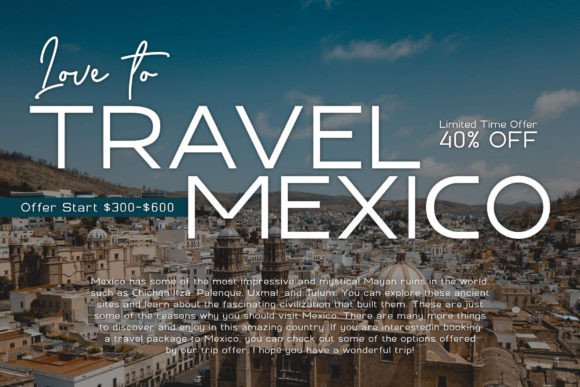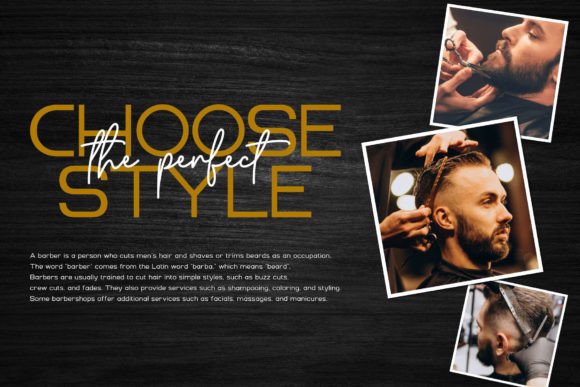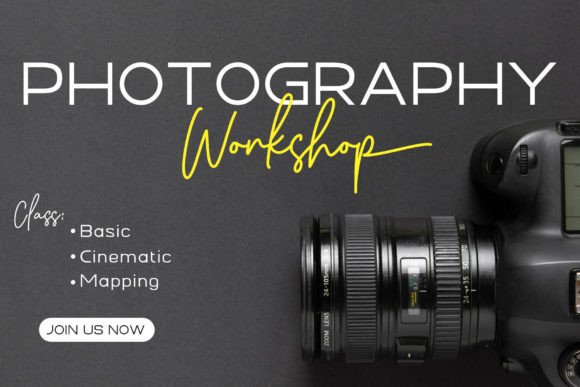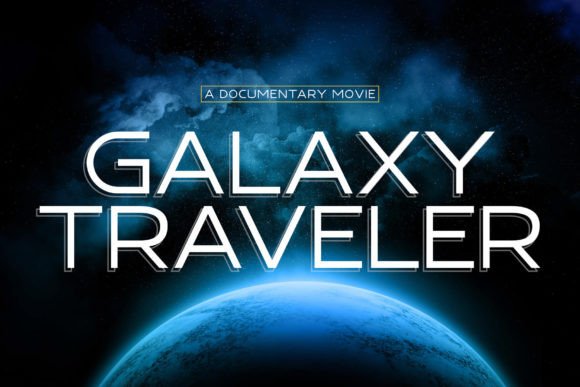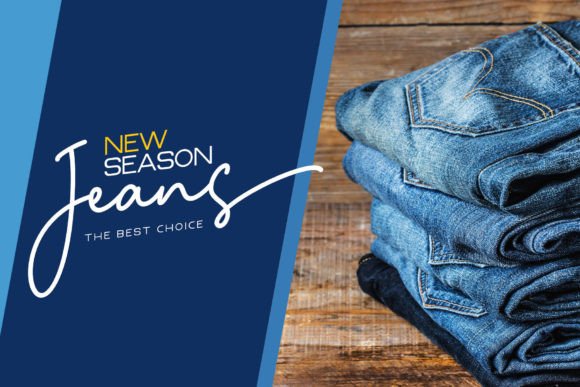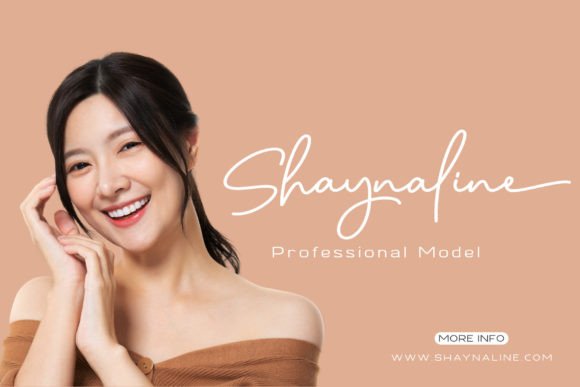
Introduction to Marliona Font Font
Fonts play a crucial role in design, and the Marliona Font font is a typeface that brings both character and versatility to any project. Whether you’re working on a branding project, a website, or a print design, the Marliona Font font offers a unique style that can elevate your work.
Introducing Marliona, a modern and classy font duo that features a smooth sans serif and a chic signature font.
This font is perfect for casual and sporty design projects that need a touch of elegance and flair Whether you need a logo, a poster, a flyer, or an invitation, Marliona will make your design stand out with its unique and stylish appeal.
Key Features of Marliona Font Font
Why Choose Marliona Font Font?
The Marliona Font font is more than just a typeface – it’s a design tool that helps you communicate your message with style and clarity. Its unique character set and versatile design make it suitable for a wide range of applications, from elegant invitations to bold headlines.
With its carefully crafted letterforms and balanced proportions, the Marliona Font font ensures readability and visual appeal across all mediums.
What makes Marliona Font font special?
The Marliona Font font stands out with its unique design, exceptional readability, and versatility across various design applications.